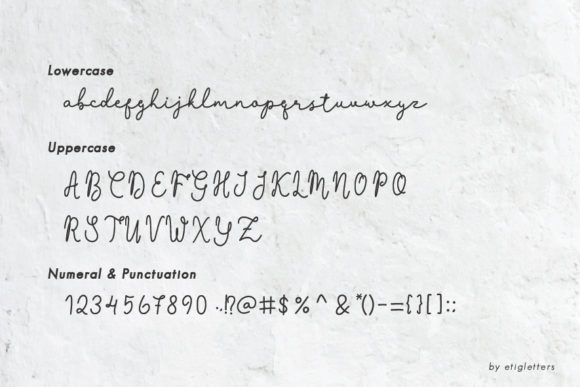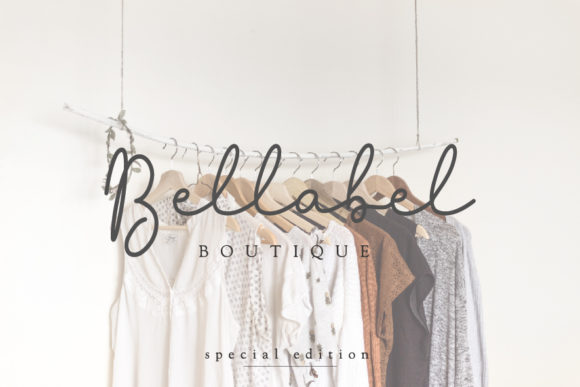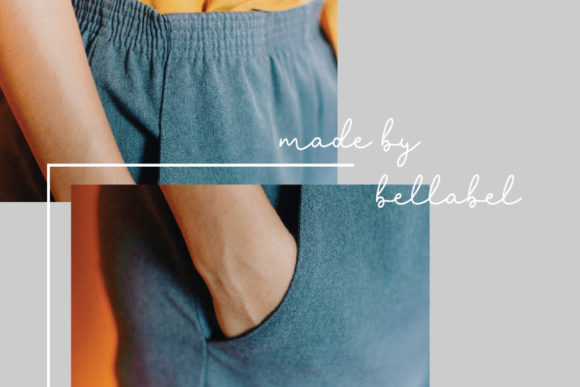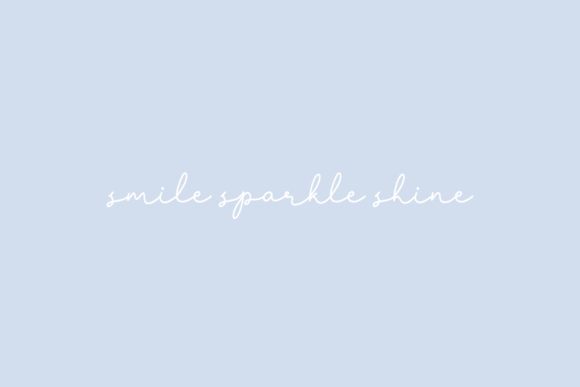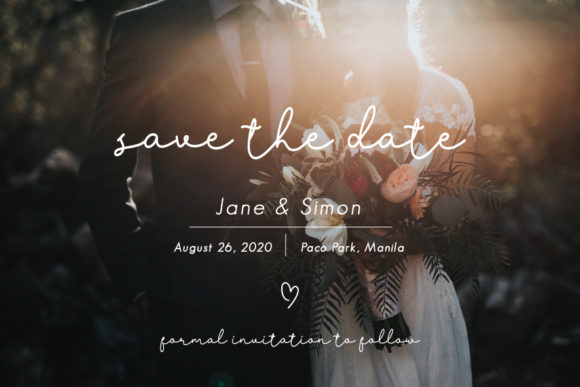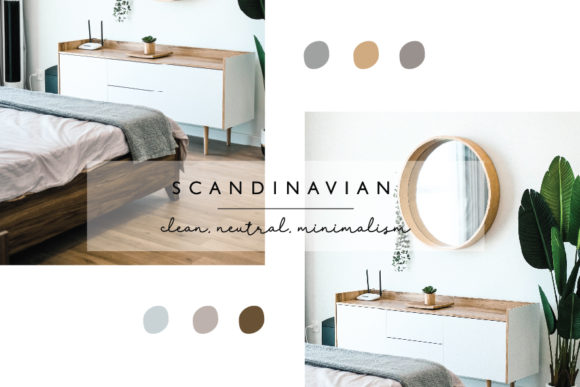
Introduction to Ganella Font
Ganella is an equally authentic and elegant handwritten font, perfectly suited for adding that sweet spark to any design.
Key Features of Ganella Font
Why Choose Ganella Font?
Ganella Font offers exceptional quality and versatility, making it a valuable addition to your design toolkit. Whether you’re creating for personal projects or commercial use, Ganella Font delivers professional results.